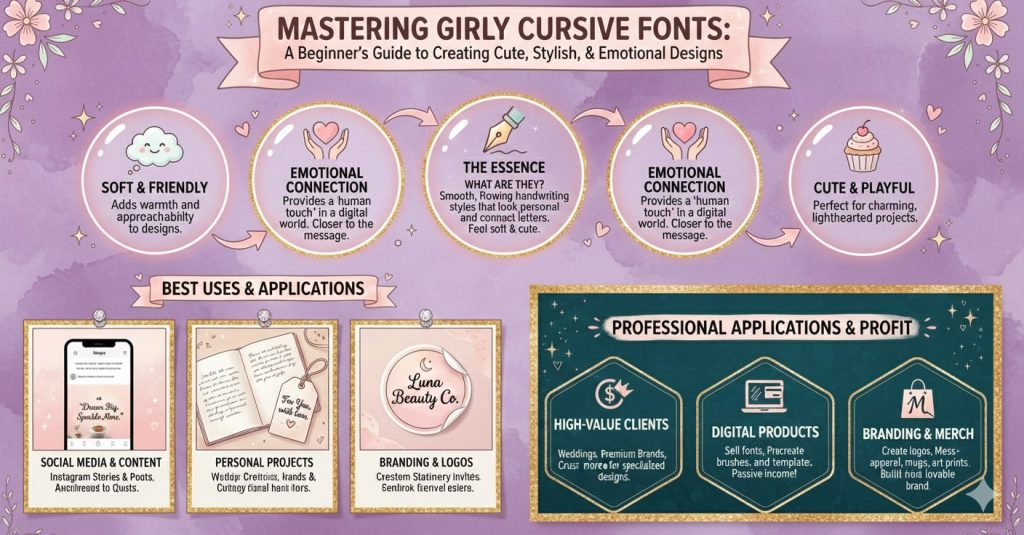
How I Understand Girly Cursive Fonts And Use Them To Create Cute And Stylish Designs
I think this guide helps you understand girly cursive fonts and how we use them to create cute and beautiful designs easily.
I think girly cursive fonts are one of the most beautiful font styles we can use today. When I first started working with fonts I felt confused because there were so many styles. Over time I learned that girly cursive fonts are special because they feel soft, friendly and emotional. We see them in notebooks, wedding cards, Instagram posts and brand logos. In this guide we will learn what girly cursive fonts are, how they look and how we should use them in real designs.
What Are Girly Cursive Fonts
Girly cursive fonts are font styles that look like smooth handwriting. They feel soft, cute, playful and sometimes romantic. These fonts usually have flowing letters that connect with each other. I notice that many girly cursive fonts look like they are written with a pen. That is why people love them for personal designs.
We often use girly cursive fonts when we want a design to feel warm and friendly. If a design feels too serious then these fonts help balance it. That is what makes them so popular.
Why Girly Cursive Fonts Are So Popular
I think these fonts are popular because they connect emotionally with people. When someone sees a soft handwritten style they feel closer to the message. We are living in a digital world but these fonts give a human touch.
People use girly cursive fonts in many places. Social media posts. Quotes. Brand names. Stationery. Gift cards.
If a brand wants to look friendly and creative then these fonts are a great choice.
How I Personally Started Using Girly Cursive Fonts
When I started designing simple posts I wanted something that looked cute and unique. At first I used basic fonts but they felt boring. Then I tried a girly cursive font and my design instantly looked better.
I realized that if the font matches the message then the design feels complete. That experience helped me understand the power of font choice. Now I always think carefully before choosing a font.
Best Uses Of Girly Cursive Fonts
Social Media Content
These fonts are perfect for Instagram stories and posts. They make quotes look attractive. If your content is about lifestyle beauty or motivation then these fonts work very well.
Personal Projects
If you are making a notebook cover or a birthday card then girly cursive fonts are a great choice. They make the design feel special and handmade.
Branding And Logos
Some small brands use girly cursive fonts to look friendly and creative. If your brand focuses on fashion beauty or handmade products then these fonts are very helpful.
How To Choose The Right Girly Cursive Font
Choosing the right font is very important. Not every cursive font is good for every design.
I think we should ask a few simple questions. What is the message? Who will read it? Where will it be used?
If the text is long then we should choose a simple cursive font. If the text is short then we can use a more decorative style.
Girly Cursive Fonts And Readability
Readability is very important. Some cursive fonts look beautiful but are hard to read. I always test a font before final use.
If your audience is young or casual then readability is even more important. We should always choose clarity over style.
Girly Cursive Fonts For Beginners
If you are new then do not worry. Start with simple cursive fonts. Avoid very fancy styles at first.
Practice using them in small projects. Over time you will understand which fonts work best.
Learning fonts is like learning art. It takes time and practice.
How Girly Cursive Fonts Improve Design Feel
I think fonts play a big role in design emotion. Girly cursive fonts add softness and charm. They make designs feel personal and warm.
If a design feels empty then the right font can fix it. That is why fonts are not just text. They are part of the design story.
Tips To Use Girly Cursive Fonts Like A Pro
Use them for headings not long text. Match them with a simple background. Do not mix too many fonts. Always check readability.
These small tips make a big difference.
FAQs
What are girly cursive fonts?
Girly cursive fonts are handwriting style fonts that look soft, cute and stylish.
Are girly cursive fonts good for beginners?
Yes they are easy to use if you start with simple styles.
Can we use girly cursive fonts for logos?
Yes if the brand is creative, friendly or personal.
Are girly cursive fonts readable?
Some are very readable but some are not. Always test before using.
Conclusion
I think girly cursive fonts are a beautiful way to add personality to any design. They help us express emotions, creativity and warmth. When used correctly they make designs look special and memorable.
We should always choose fonts carefully. If we understand where and how to use girly cursive fonts then our designs will improve a lot. This guide is based on real experience and simple learning. I hope it helps you choose better fonts and create designs that people truly enjoy.